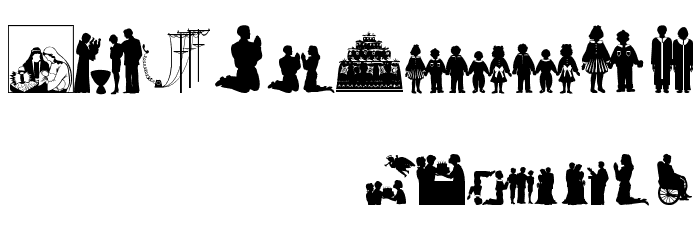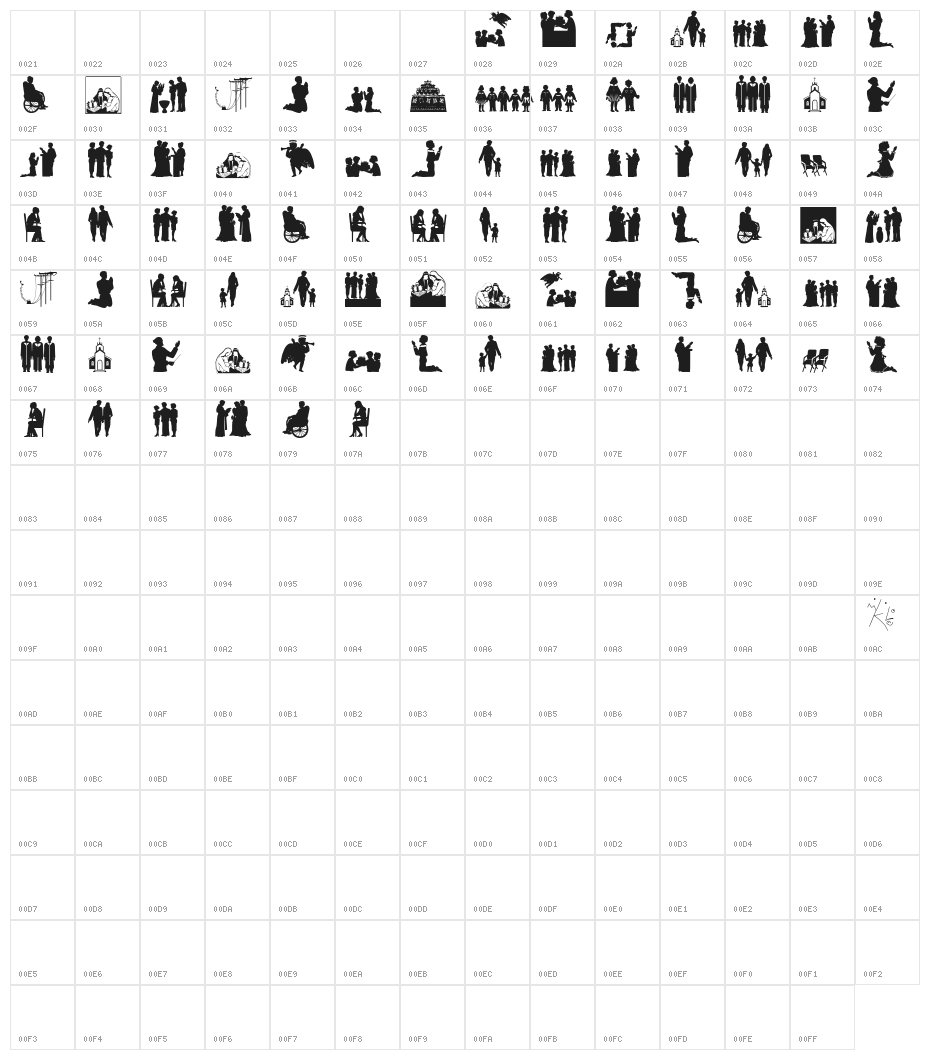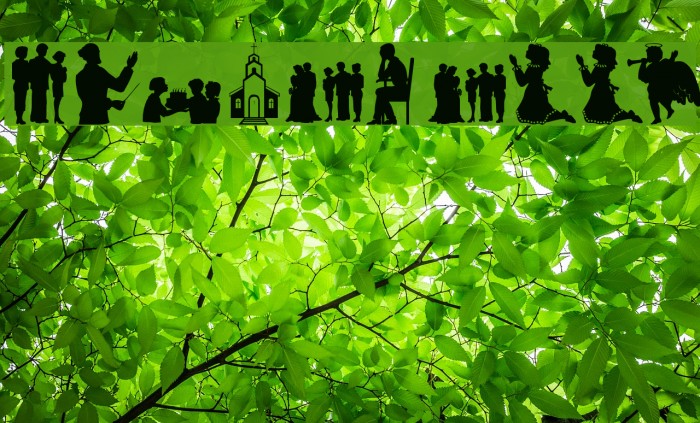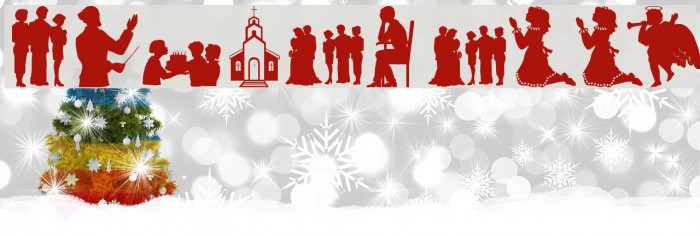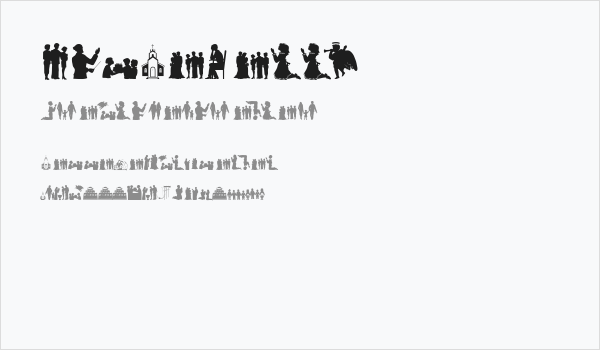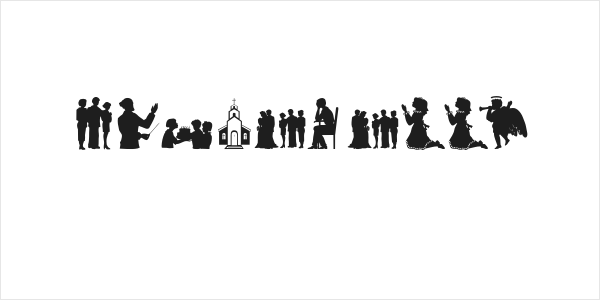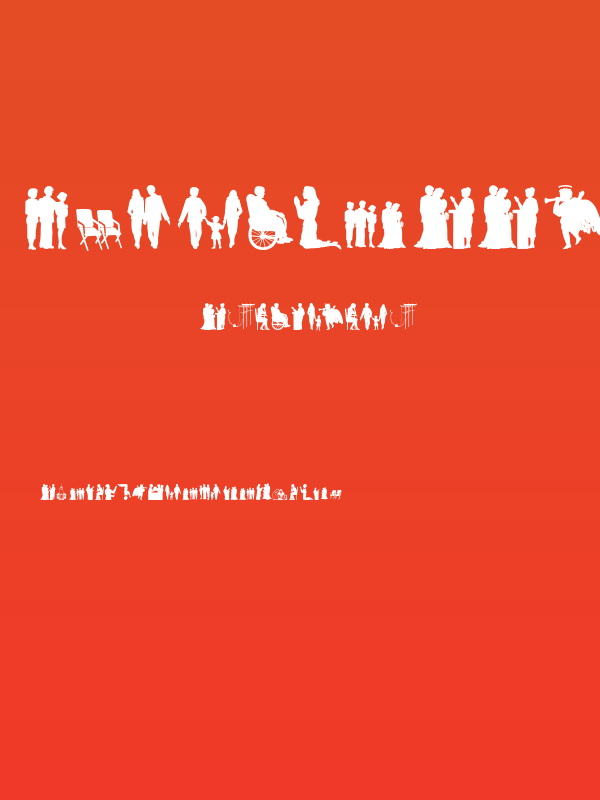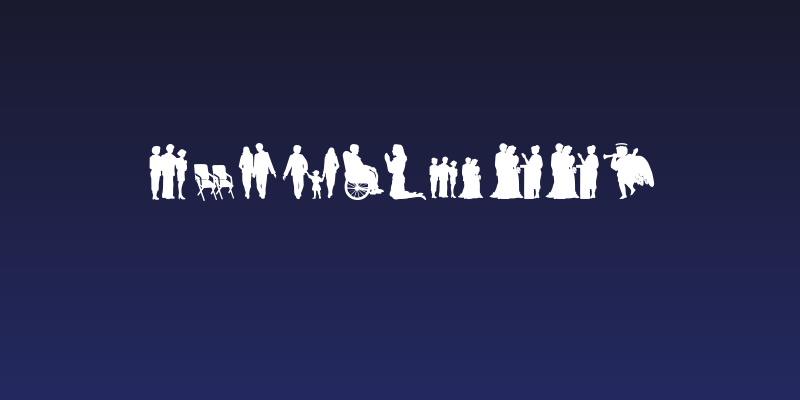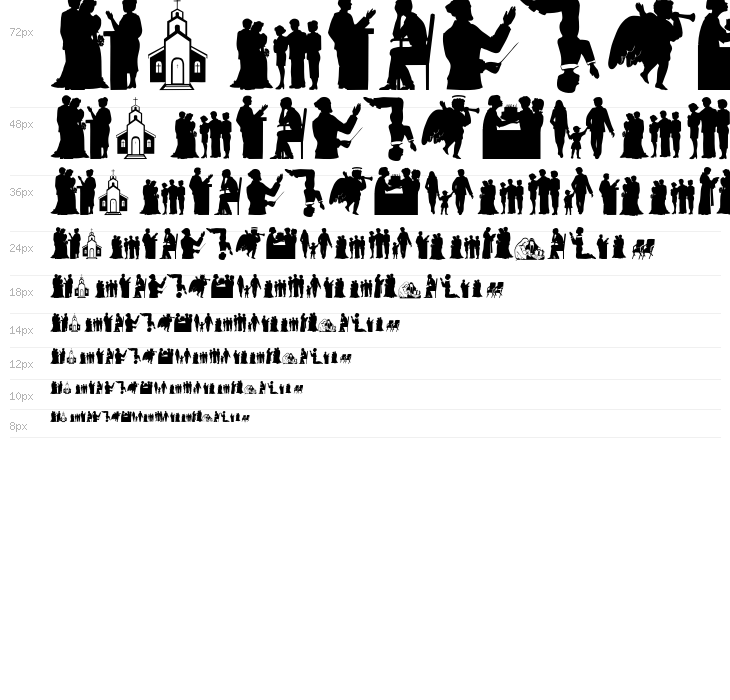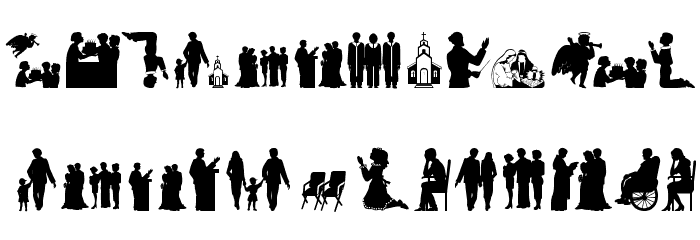
SilhouettA Font
SilhouettA Description
A decorative display font composed of detailed human and family-themed silhouettes, each character represented by a unique scene or group of people in various poses and activities. The glyphs are solid black, high-contrast, and lack traditional typographic features, focusing instead on illustrative storytelling.
| Overall Style | Decorative, Illustrative, Thematic |
| Use Case | Headlines, Posters, Themed graphics, Invitations |
| Proposed Projects | Event invitations, posters, educational materials, family-oriented branding, scrapbooking, and decorative headlines. |